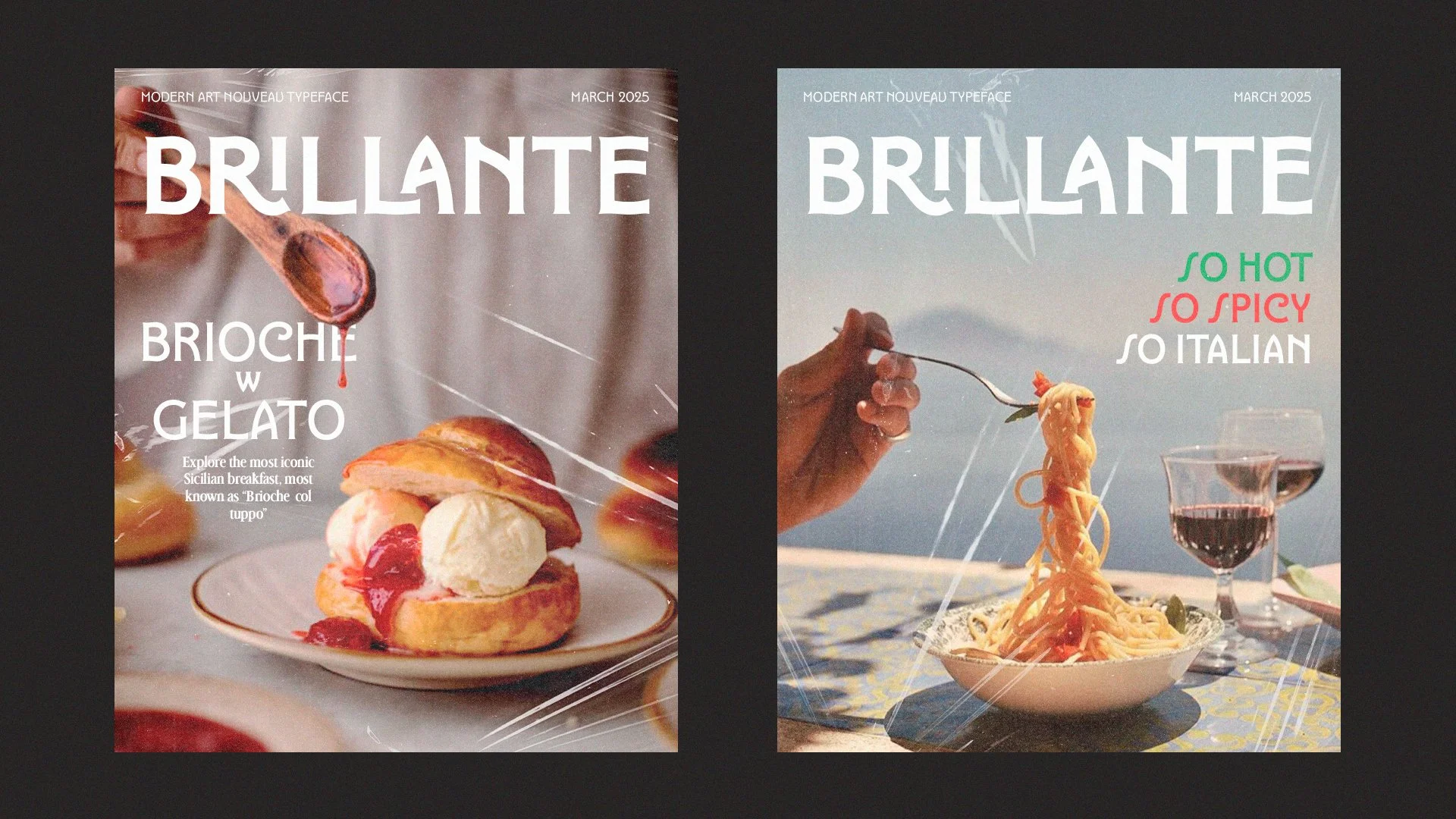
Step into the world of classic Italian elegance with Brillante Typeface—a modern serif font that beautifully marries vintage charm with contemporary design that takes inspiration from old Italian Art Nouveau shop signs. Available in 5 versatile weights, Brillante is packed with OpenType features that give you creative freedom. Explore a wide selection of ligatures, contextual alternates, fractions, and stylistic sets that add a unique flair to your typography.
With an impressive range of diacritics that allow you to communicate over 240 languages, Brillante is perfect for headings, logotypes, labels and more.